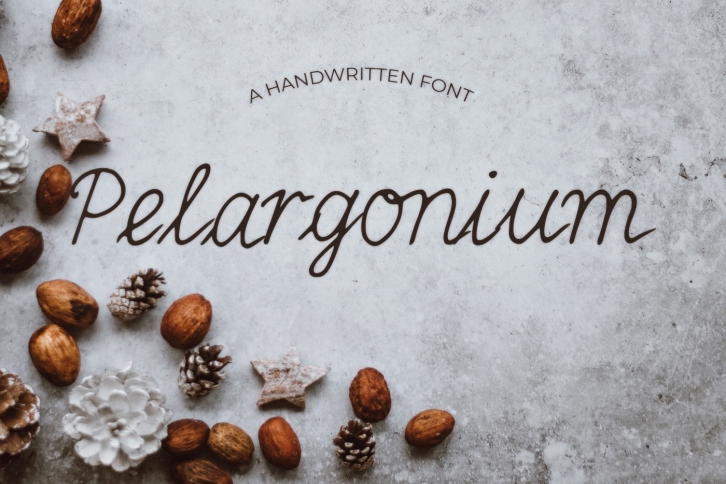
Pelargonium is a trendy and unique font with an authentic style. It was designed by Eldamar Studio and it's a great choice for creative people who need such a font. It was released on November 22, 2018 and the file size is 10.64 MB. Pelargonium will add an organic vibe to any design idea!